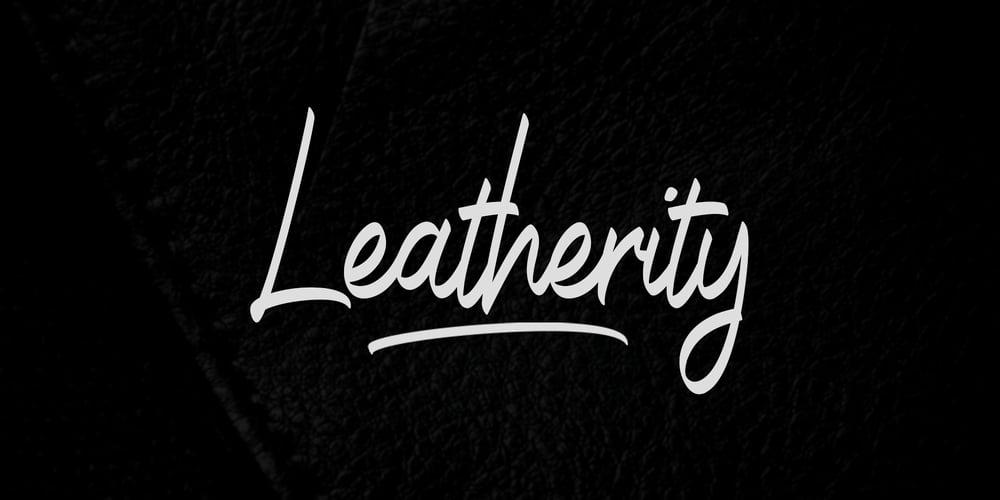
Leatherity Font Family was designed by Khaidir Fajri and published by Panritype Studio. Leatherity contains 1 styles and family package options. Leatherity is a font made from hand scratches that are digitally processed to produce typical handwritten curves and smooth digital shapes.This font is suitable for projects that require handwriting with a signature touch such as photography logotypes, aesthetic restaurants or coffee shops logo and can also be used for wedding and engagement projects.This font consists of all standard characters along with numbering, natural ligature typical of handwriting, natural swashes and include multilingual support for; ä ö ü Ä Ö Ü ß ¿ ¡